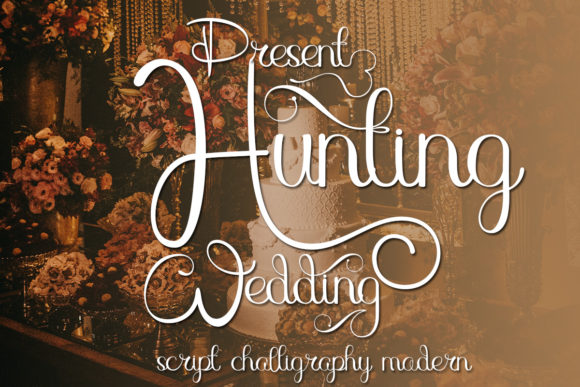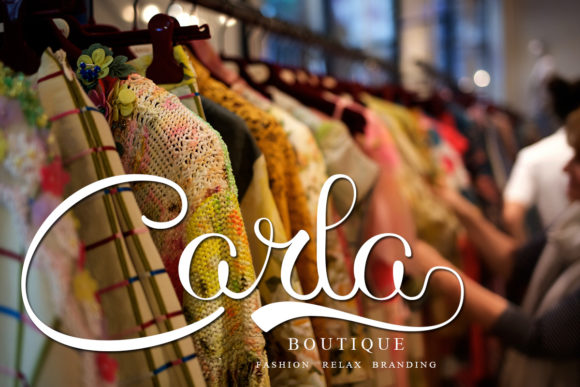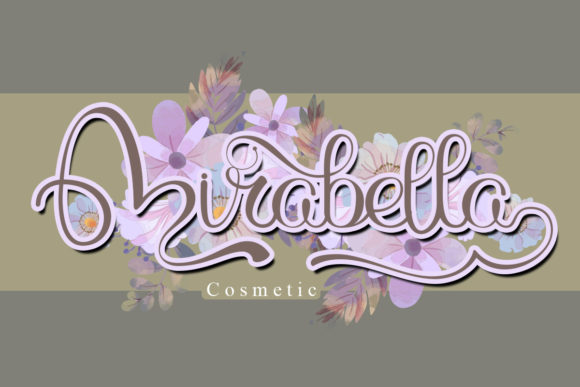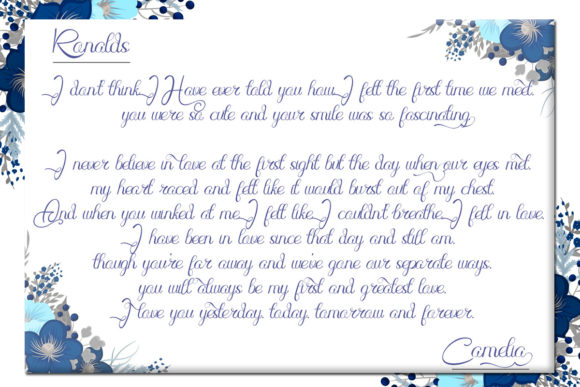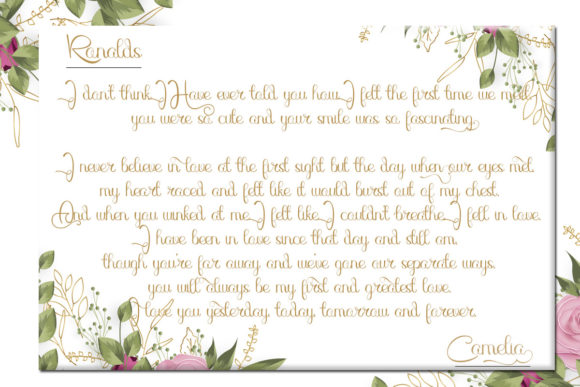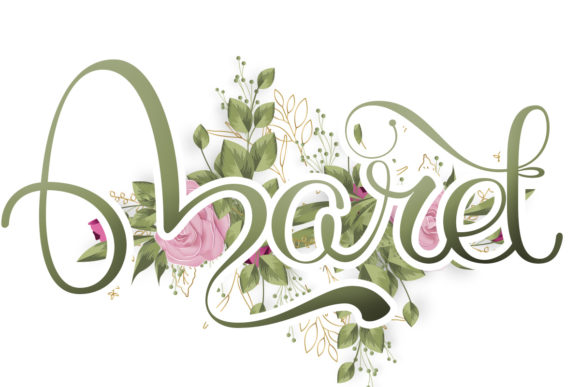
The Perfect Union of Whimsy and Elegance: Hunting Wedding Font
As a designer, have you ever found yourself stuck on a project, desperately searching for the perfect font to bring your vision to life? I’ve been there too. It’s the moment when everything else fades away, and all you can think about is finding that one elusive typeface that captures the essence of your design.
Enter the enchanting Hunting Wedding Font, a romantic and sweet calligraphy typeface that will transport you to a world of whimsy and elegance. With its dancing characters that glide effortlessly along the baseline, Hunting Wedding Font is the perfect addition to any wedding invitation, love letter, or special occasion design. As a PUA encoded font, you’ll have access to all the glyphs and swashes you need to create truly unique and captivating designs.
Whether you’re a seasoned designer or just starting out, Hunting Wedding Font is a valuable asset that will elevate your projects to new heights. Its casual yet elegant touch will make your designs stand out from the crowd, and its versatility will inspire you to push the boundaries of what’s possible.
Hunting Wedding Font Key Features
- Font Family: Hunting Wedding is a unique, hand-drawn font designed for wedding invitations and other special occasions.
- Character Set: Includes a wide range of characters, including uppercase and lowercase letters, numbers, punctuation marks, and special characters, making it suitable for various text-based designs.
- Unique Characteristics: Features a whimsical, hand-drawn style with intricate details and flourishes, perfect for adding a touch of elegance and sophistication to wedding invitations and other special occasion designs.
Hunting Wedding Font Review
Hunting Wedding Font is a beautiful, elegant script font that’s perfect for adding a touch of romance to your designs. Here’s what I love about it:
- ✨ Unique, handwritten feel that adds a personal touch to any project
- ✨ Beautiful ligatures that make the font look even more elegant and refined
- ✨ Wide range of languages supported, making it a great choice for international projects
- ⚠️ Font may be too ornate for some designs, making it difficult to read at small sizes
- ⚠️ Limited character set, which may cause issues for projects that require a wide range of special characters
Overall, I think Hunting Wedding Font is a great choice for designers who want to add a touch of elegance and romance to their projects. While it may have some limitations, its unique feel and beautiful ligatures make it a standout font. With a little care and attention to detail, you can use this font to create truly stunning designs.
Some common use cases for Hunting Wedding Font include:
- Wedding website and social media graphics.
- Wedding event signage and decorations.
Alternatives to Hunting Wedding Font
Pacifico is a beautiful, elegant script font that is perfect for wedding invitations, stationery, and other romantic designs. It has a soft, flowing feel that evokes a sense of luxury and sophistication. Compared to Hunting Wedding Font, Pacifico has a more refined and delicate look, making it ideal for high-end weddings or special occasions.
Great Vibes is a modern, elegant script font that is great for wedding invitations, announcements, and other formal designs. It has a clean, minimalist look that works well with modern or vintage-inspired designs. Compared to Hunting Wedding Font, Great Vibes has a more contemporary feel and is better suited for modern or trendy weddings.